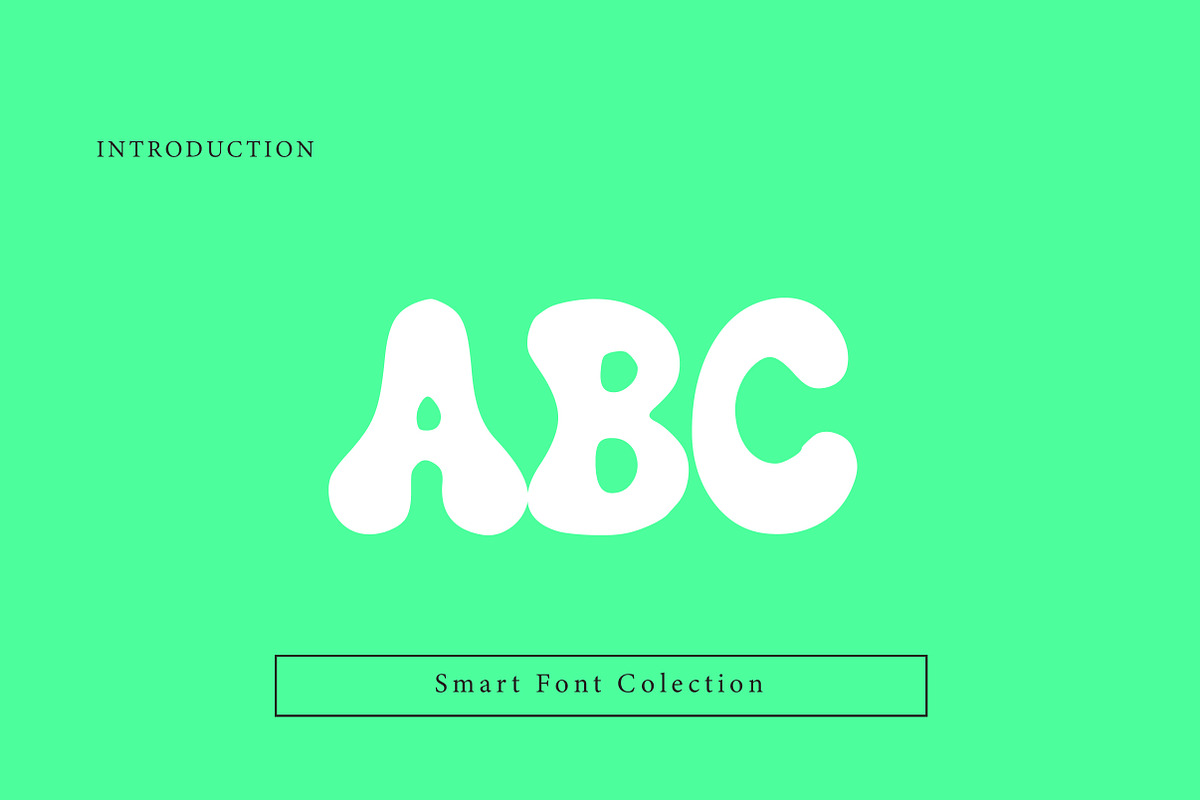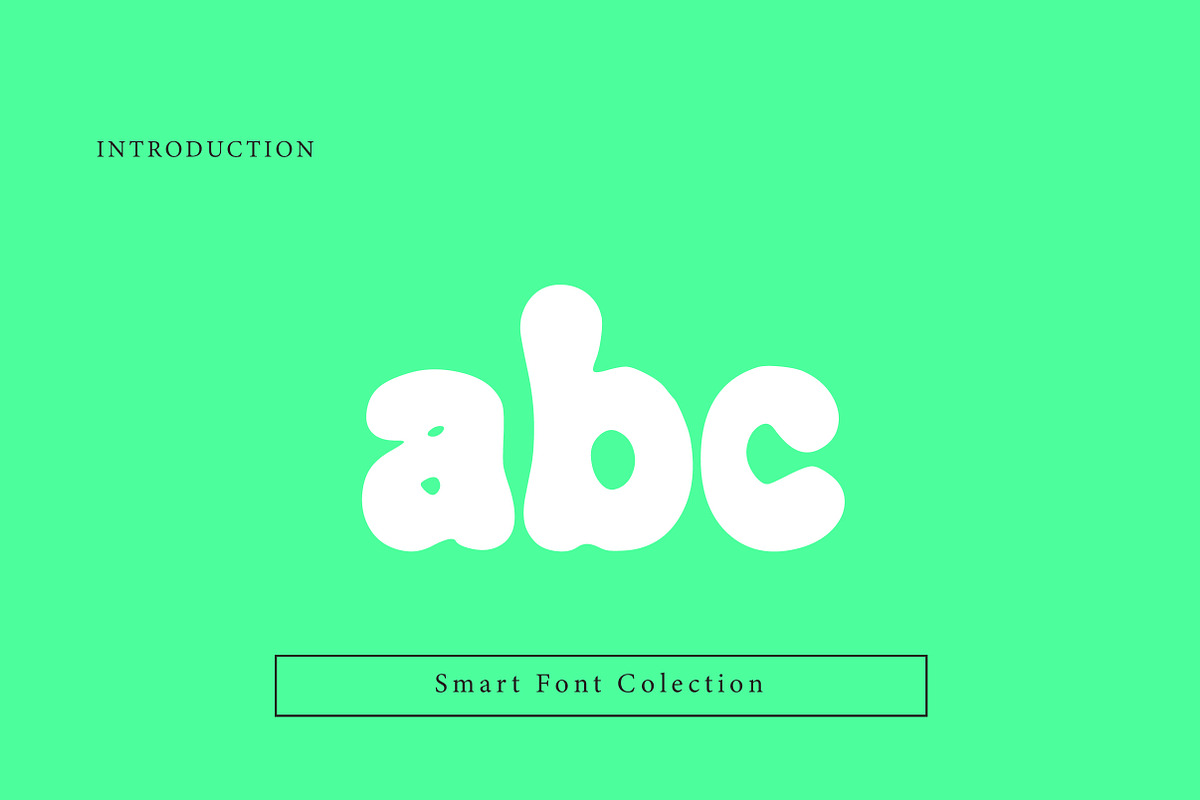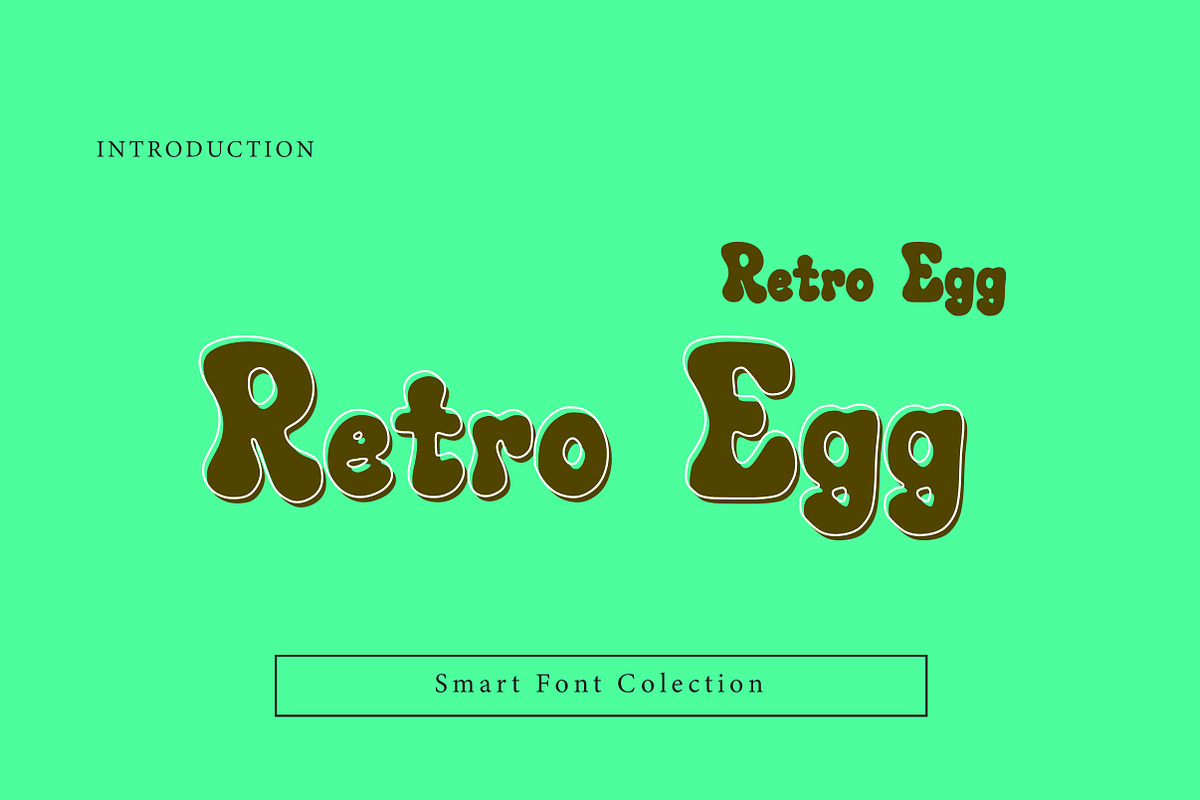
Retro Egg
Retro Egg is a playful and groovy retro display font inspired by 70s bubble typography and soft rounded letterforms. With chunky egg-shaped curves, bold strokes, and a cheerful vintage vibe, this font is perfect for posters, logos, packaging, stickers, t-shirts, social media graphics, kids projects, and retro branding. Retro Egg brings fun, warmth, and nostalgia to your designs, making it ideal for eye-catching headlines and creative typography.